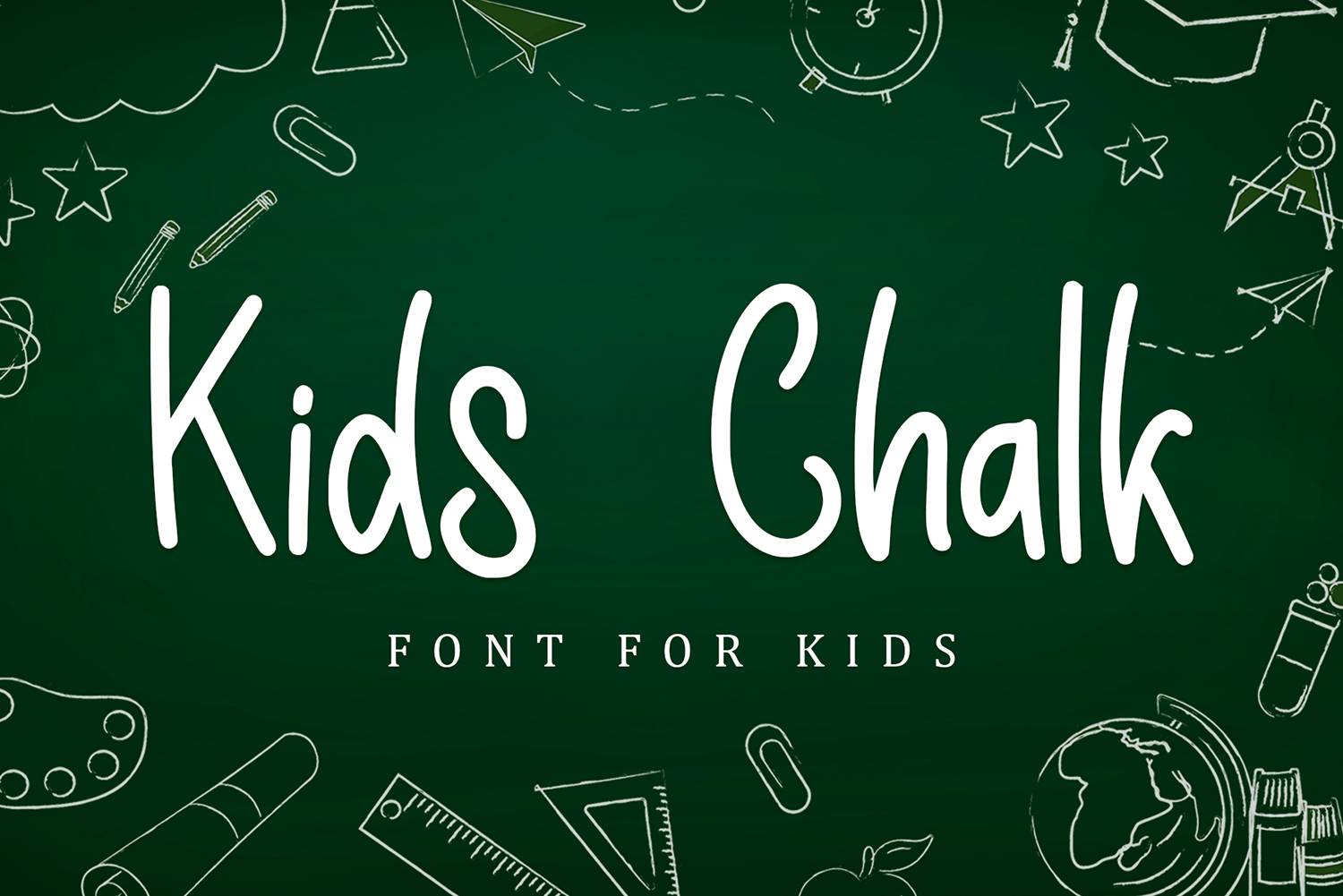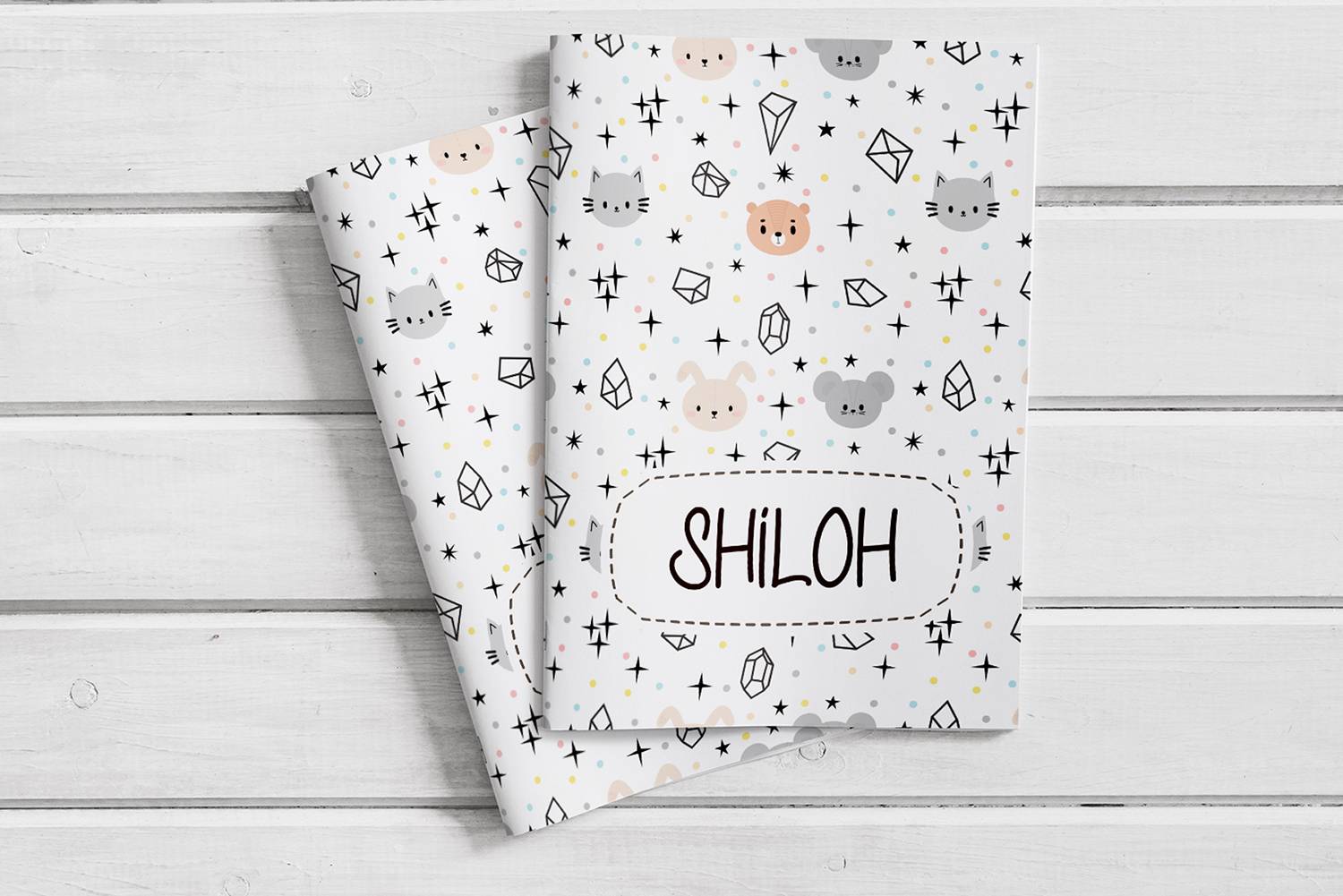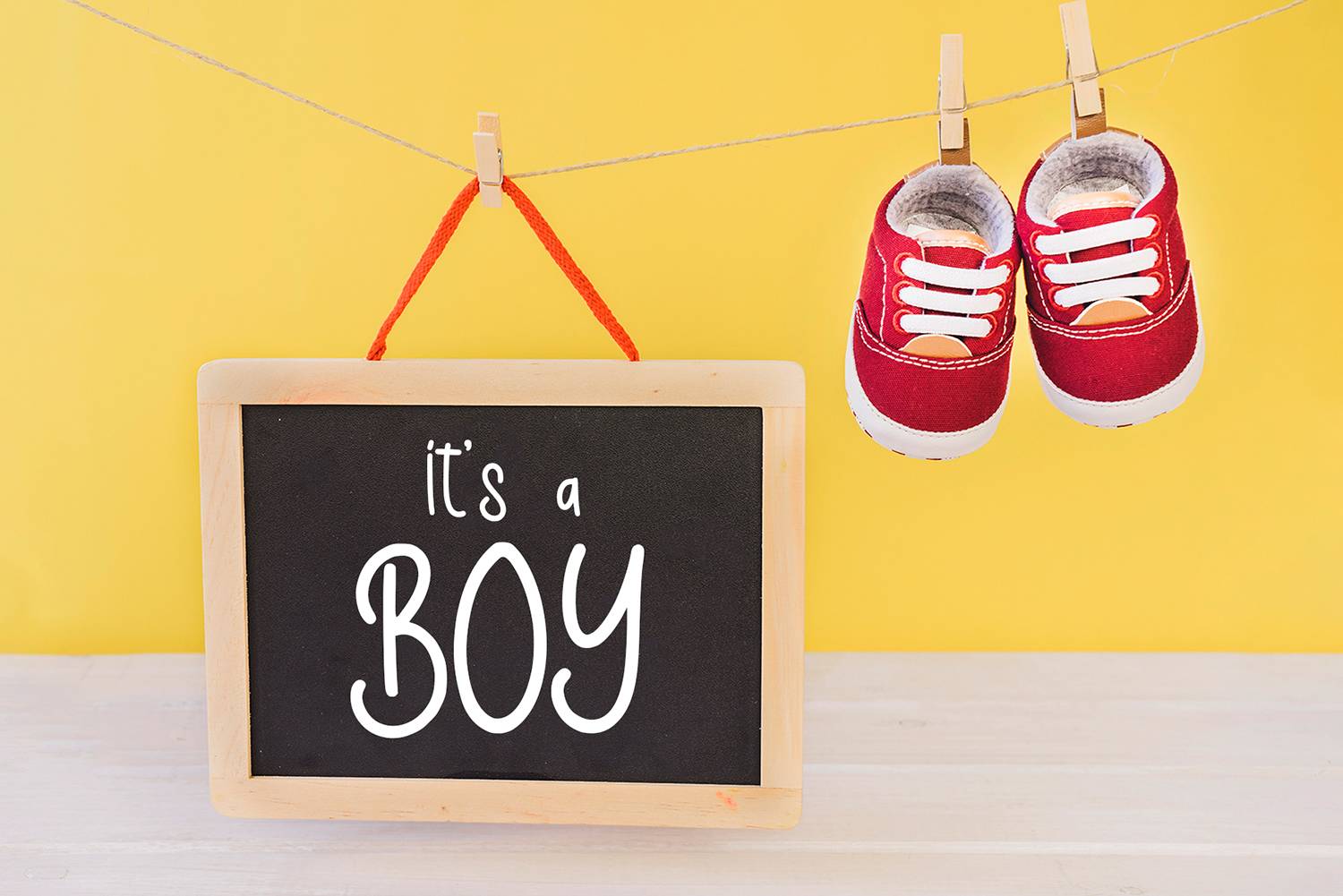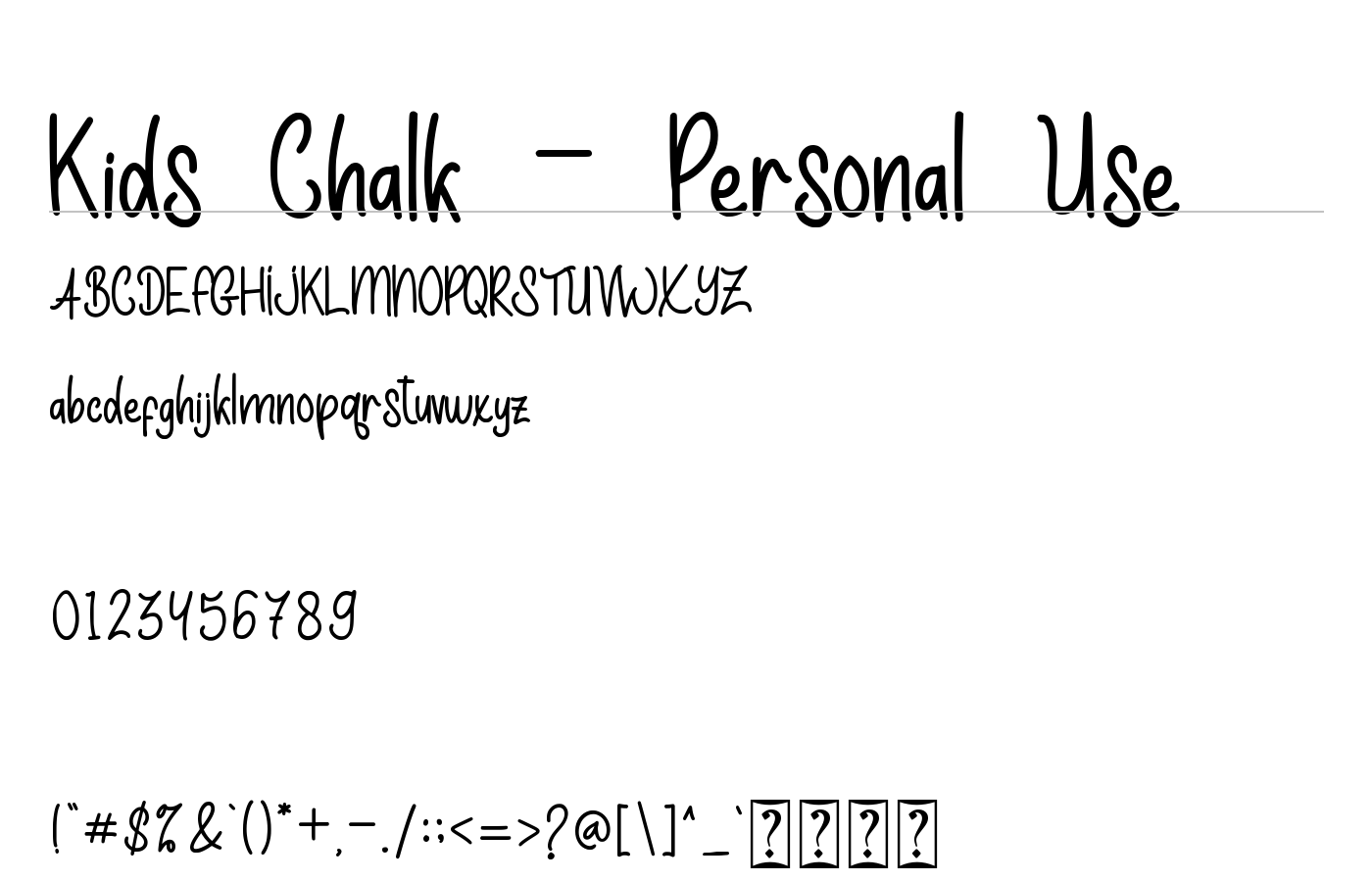
Kids Chalk is a playful and casual handwritten sans serif font that mimics the look of childlike chalk writing. With its tall, thin letterforms and slightly irregular strokes, it feels lighthearted and friendly, making it perfect for designs aimed at children or informal, creative projects. This font works well for educational materials, posters, and playful branding where a warm, approachable vibe is desired.
Kids Chalk Font
About Kids Chalk Font